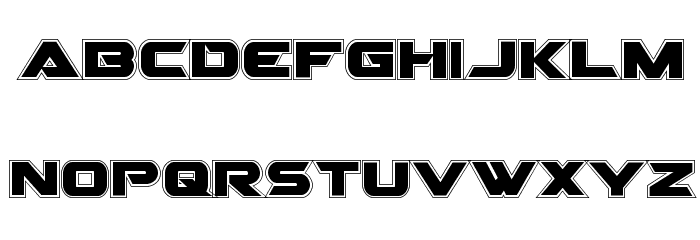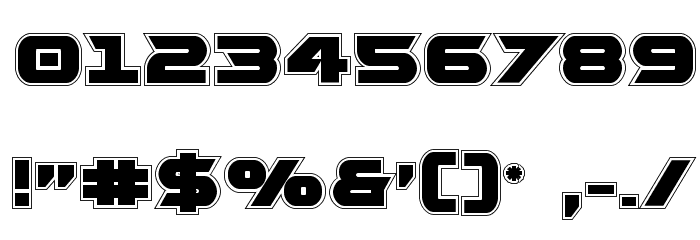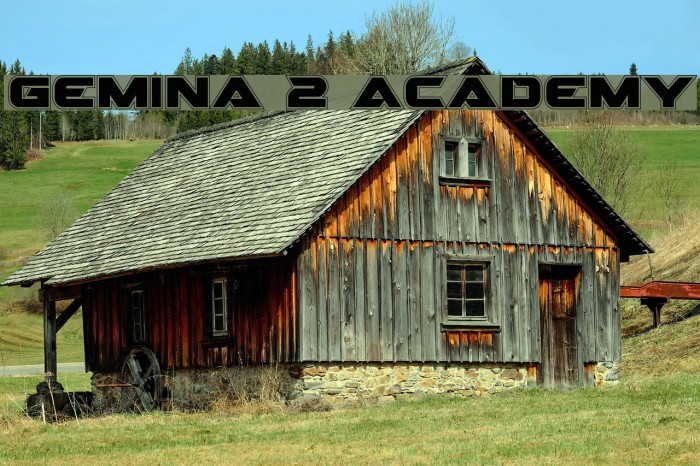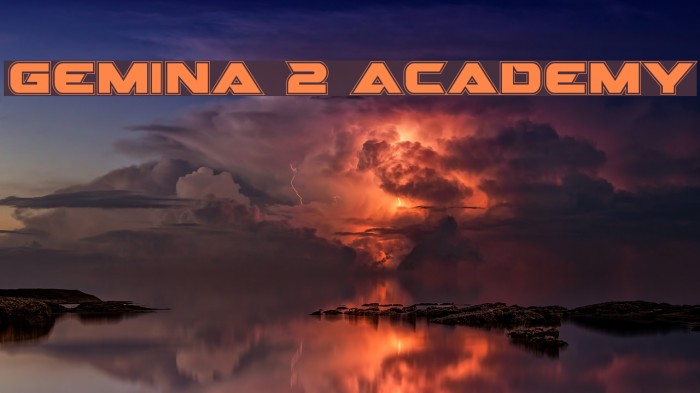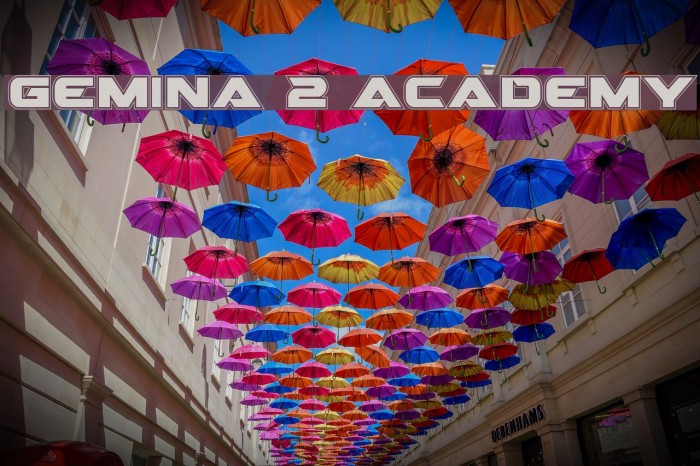
Gemina 2 Academy Font
This font features a bold, geometric design with a futuristic and dynamic appearance. The characters are constructed with sharp angles and thick strokes, giving them a strong presence. The use of negative space within the letters adds a unique and modern touch, enhancing the overall visual impact. The font maintains a consistent weight throughout, ensuring uniformity and balance. Its distinct style makes it suitable for attention-grabbing headlines and titles. The numerals and special characters follow the same design principles, ensuring cohesion across all elements.
A bold, geometric font with a futuristic and dynamic style.
- Proposed Projects: Ideal for sci-fi themed projects, video game titles, tech branding, and modern posters.
- Overall Style: Futuristic